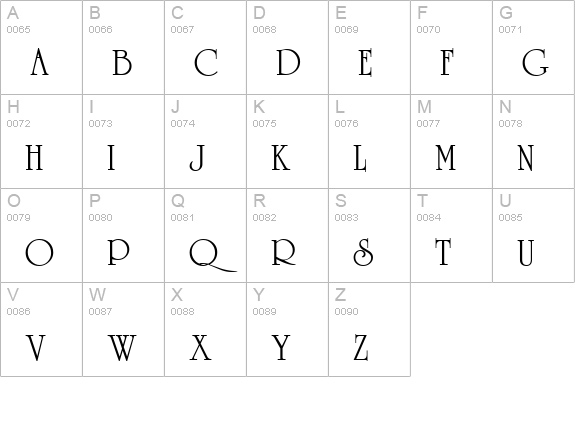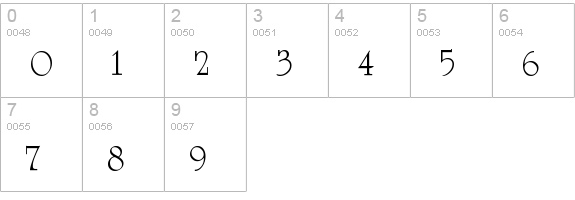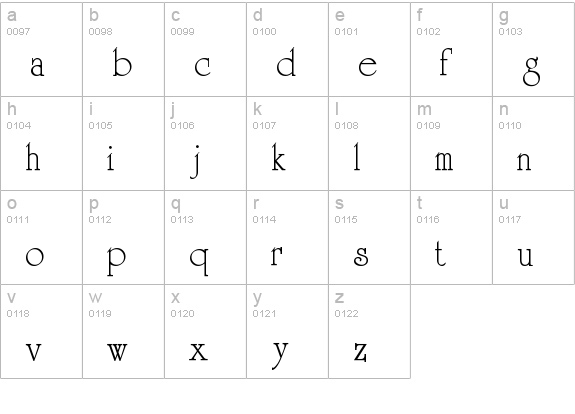
University ICG Font Details
University ICG font is a stunning display typeface that exudes elegance and professionalism. With its bold and strong letterforms, it commands attention and adds a touch of sophistication to any design project. The sleek and clean lines of this font make it perfect for headings, logos, posters, and invitations. What makes University ICG font even more appealing is that it is available for free! Yes, you heard it right, this amazing font is freely available to download at FontsMarket.com. This means that you can enhance your designs without having to spend a penny. Whether you are a student, a professional designer, or someone who simply appreciates beautiful typography, University ICG font is a must-have in your font collection. Its versatility allows it to be used in various design styles, from modern and minimalistic to vintage and retro. The attention to detail in University ICG font is truly remarkable. Each letter is meticulously crafted, resulting in a harmonious and balanced typeface. The consistent weight and spacing of the characters ensure legibility even at smaller sizes. Furthermore, the extensive character set of University ICG font includes uppercase letters, lowercase letters, numerals, punctuation marks, and special characters. This means that you have all the tools you need to create visually stunning and impactful designs. Whether you are designing a logo for a prestigious university, creating an eye-catching poster for an event, or adding a touch of elegance to your personal projects, University ICG font is the perfect choice. And the fact that it is freely available to download at FontsMarket.com makes it even more enticing. So why wait? Download University ICG font now and elevate your designs to new heights. Don't miss out on this incredible opportunity to have a high-quality and versatile font in your creative arsenal. Get ready to impress with the timeless beauty of University ICG font.